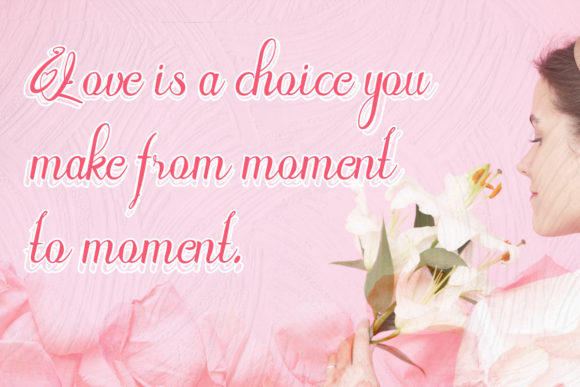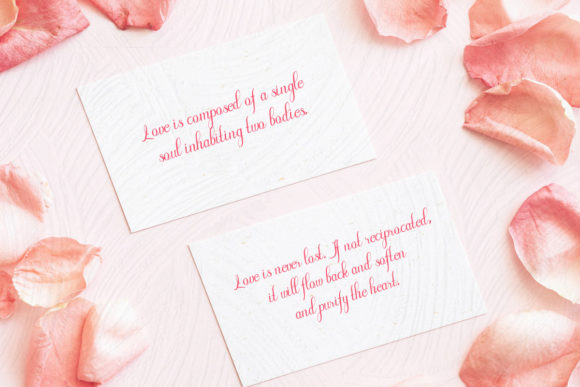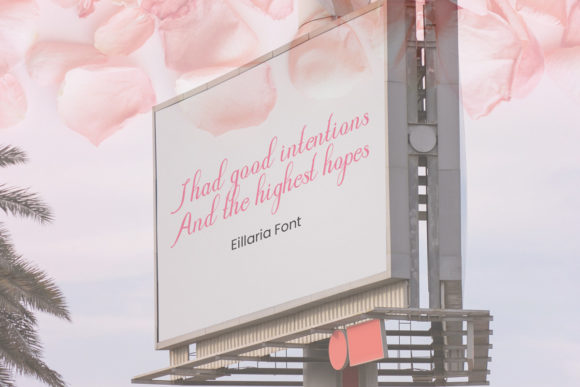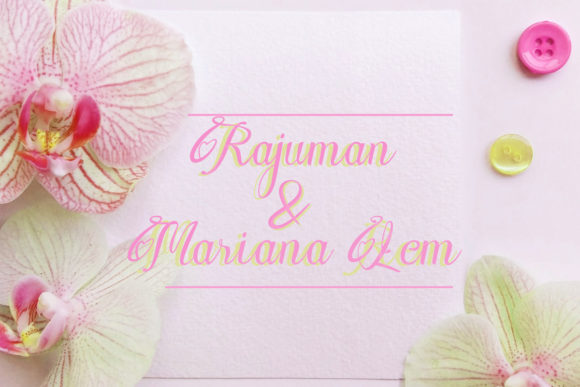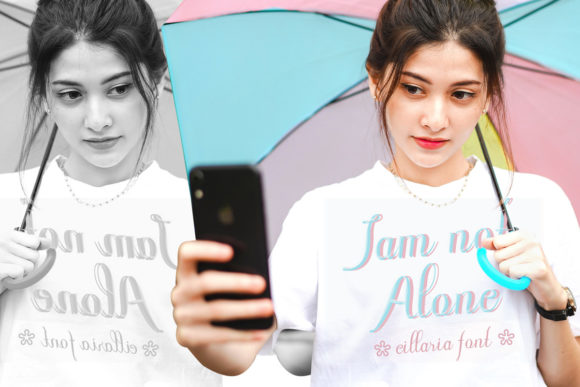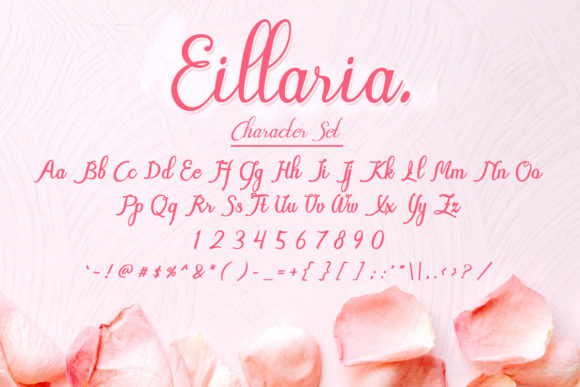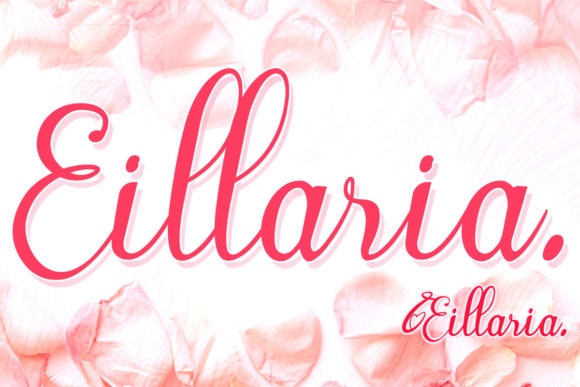
Eillaria Font: Add a Touch of Romance to Your Designs
Are you looking for a font that can add a romantic feel to your next project? Look no further than Eillaria, an enchanting handwritten font that is sure to captivate your audience. With its versatile script style, Eillaria can be used in a wide range of applications, from greeting cards to headlines, and is perfect for designers and crafters who want to add a touch of elegance to their work.
What Makes Eillaria Special?
Eillaria is a beautifully crafted font that features a unique and enchanting handwritten style. Its flowing script and delicate lines make it perfect for creating romantic and whimsical designs that are sure to impress. Whether you’re designing a greeting card, a wedding invitation, or a headline, Eillaria is guaranteed to add a touch of sophistication and elegance to your work.
Versatile and Easy to Use
One of the best things about Eillaria is its versatility. This font can be used in a wide range of applications, from digital designs to print projects. It’s perfect for creating:
• Greeting cards and invitations
• Headlines and titles
• Logos and branding materials
• Digital art and illustrations
Why Choose Eillaria?
There are many reasons why Eillaria is a great choice for designers and crafters. Here are just a few:
• Unique and enchanting handwritten style
• Versatile and easy to use
• Perfect for romantic and whimsical designs
• Great for a wide range of applications, from greeting cards to headlines
Tips for Using Eillaria
Here are a few tips for using Eillaria in your designs:
• Experiment with different glyphs and swashes to create unique and eye-catching designs
• Use Eillaria in combination with other fonts to create interesting and layered designs
• Don’t be afraid to get creative and try new things – Eillaria is a versatile font that can be used in many different ways
Eillaria is a beautiful and enchanting handwritten font that is sure to add a romantic feel to your next project. With its versatile script style, PUA encoding, and wide range of applications, Eillaria is a great choice for designers and crafters who want to create elegant and sophisticated designs. Whether you’re designing a greeting card, a headline, or a digital graphic, Eillaria is the perfect font for adding a touch of romance and whimsy to your work.